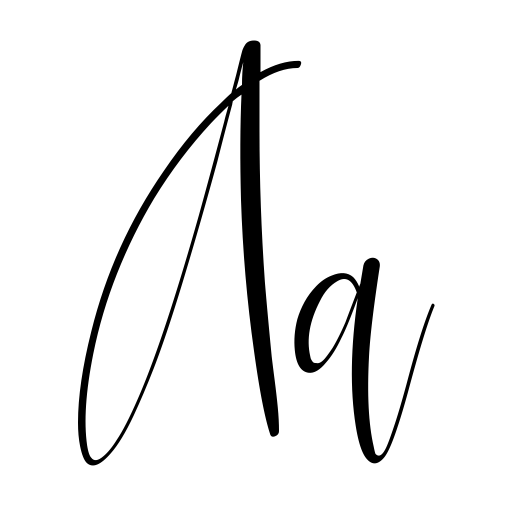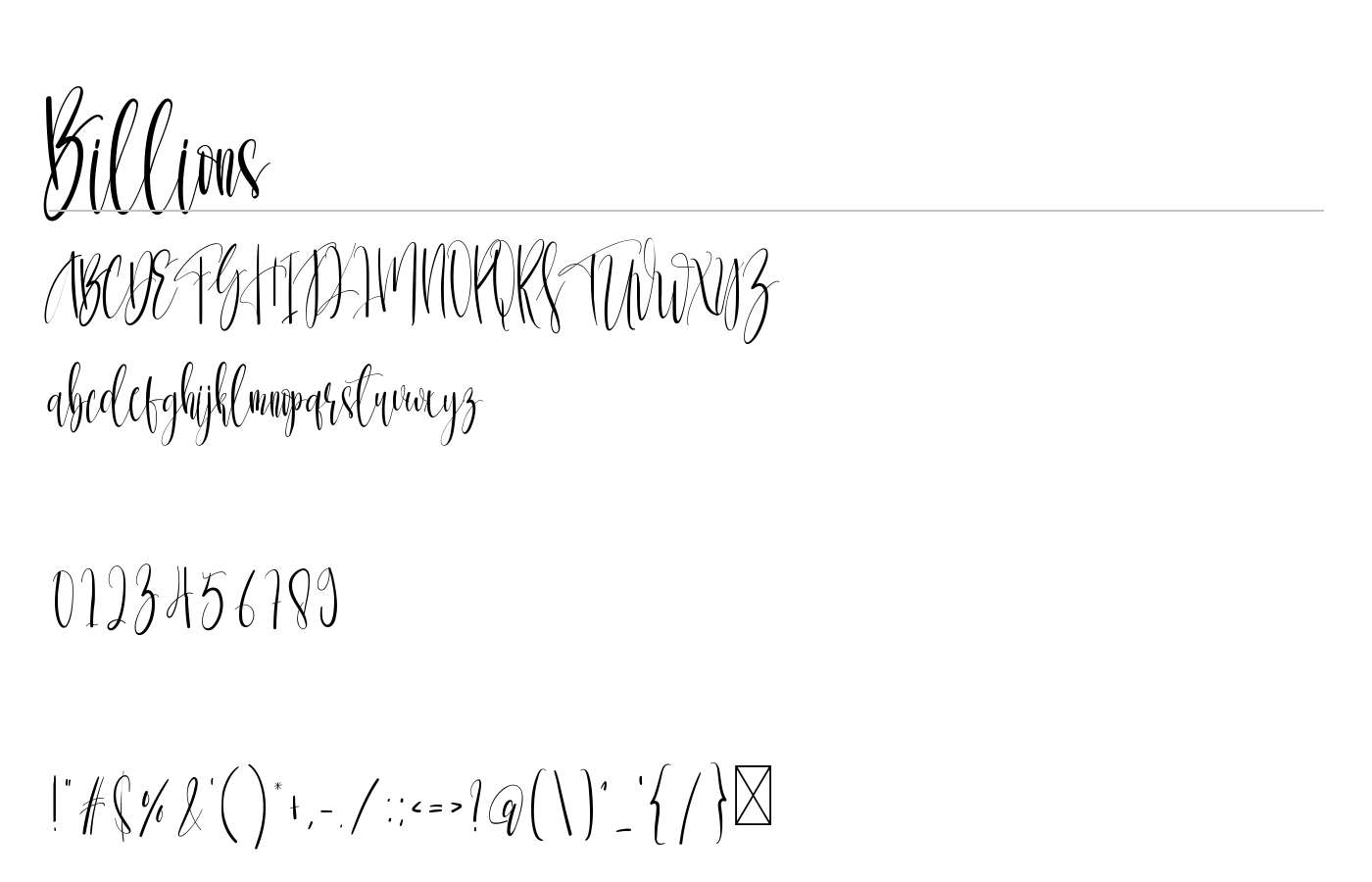
Billions is a delicate, elegant script font featuring thin, flowing strokes with a handwritten, calligraphic feel. Its tall, slender letterforms and graceful curves make it perfect for stylish invitations, branding, and creative projects that seek a sophisticated yet personal touch. This font works best in decorative headlines or logos where its artistic flair can truly shine.
Billions Font